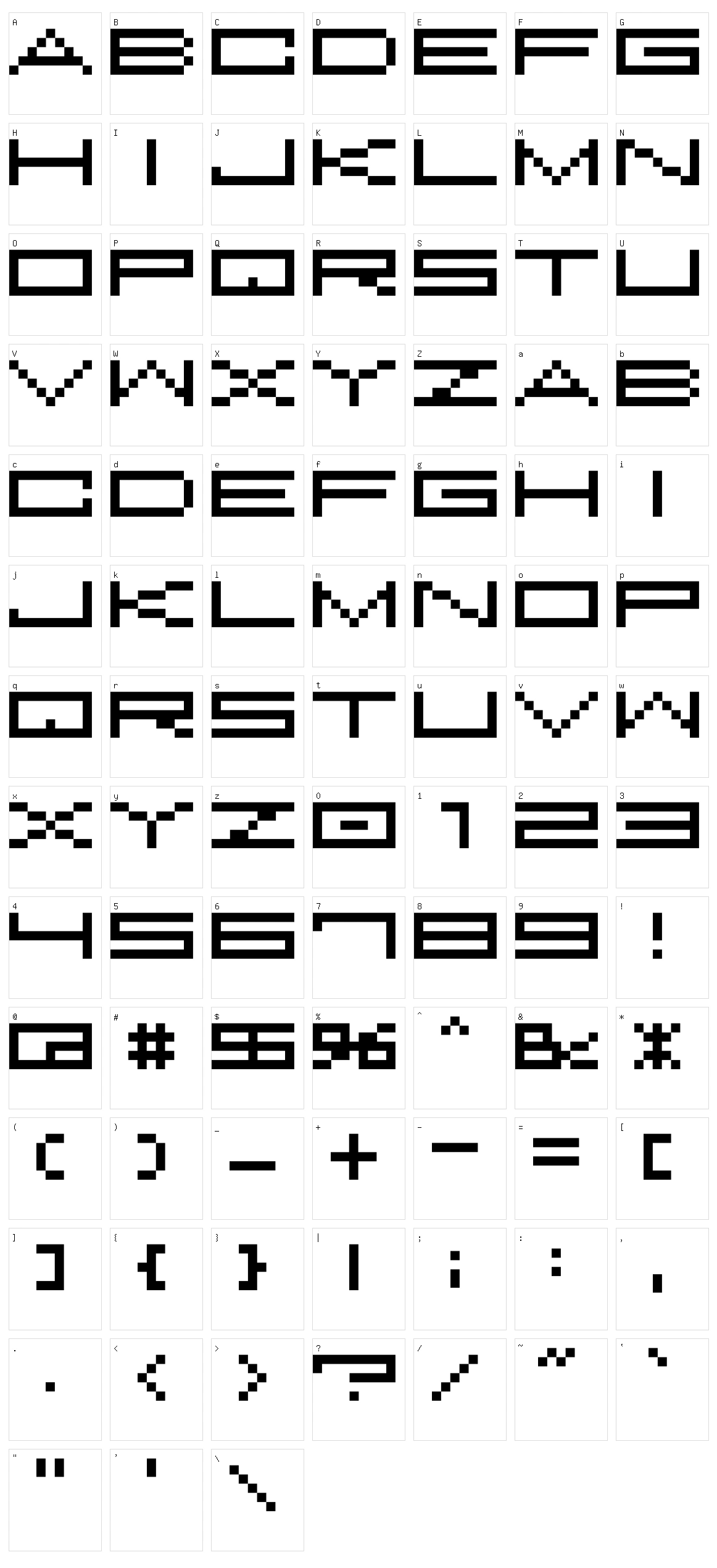
M37 Feel The Bit
Designed by: Miffies
’¿‚µ‚­Œ³ƒlƒ^‚È‚µ‚ÌŠ®‘SƒIƒŠƒWƒiƒ‹ƒeƒNƒmƒtƒHƒ“ƒgB
ŽÀ—p«dŽ‹‚©‚AƒfƒUƒCƒ“‚ª‚©‚Ԃ肪‚¿‚È
ƒrƒbƒgƒ}ƒbƒvƒtƒHƒ“ƒg‚¾‚¯‚Ɍ«dŽ‹B
ƒtƒHƒ“ƒg–¼‚̓†[ƒƒgƒ‰ƒ“ƒX‚Ì–¼‹È
uDARUDE / Feel The Beatv‚Ì‚à‚¶‚è‚Å‚·B